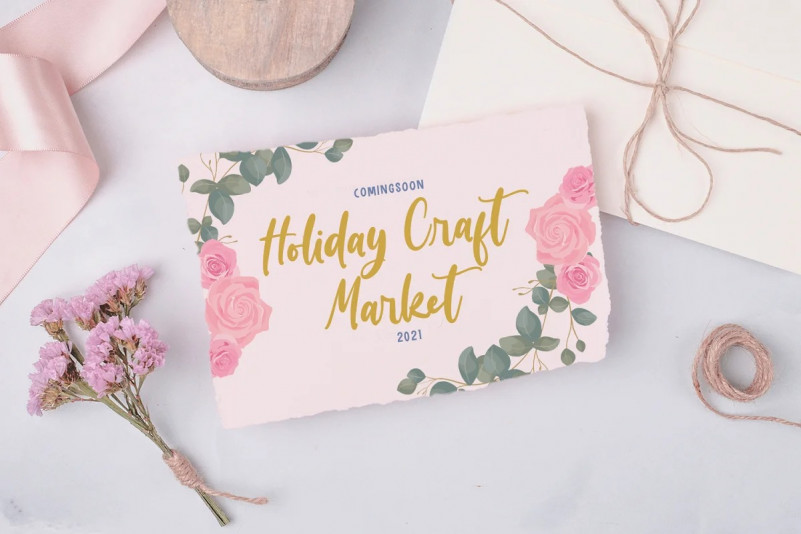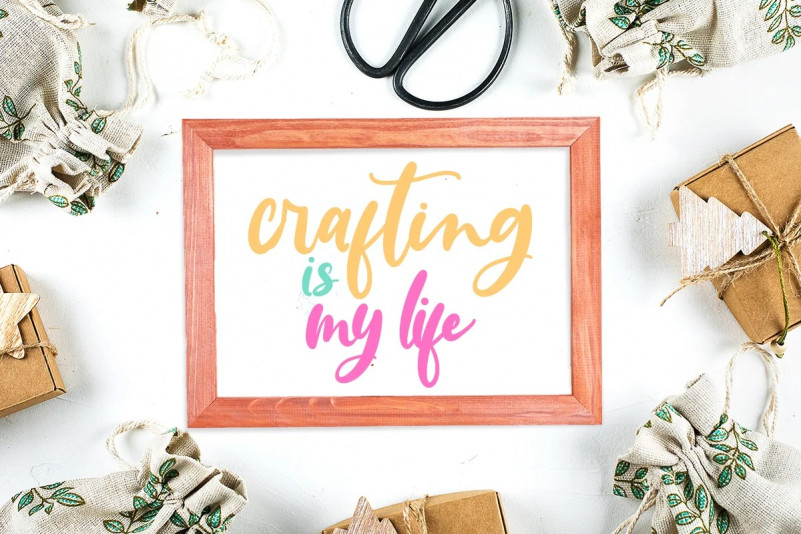
Digress Script Font
Introducing Digress – Handwritten Font
This font is great for branding materials, quotes, business cards, headings, blogs, logos, Cricut artwork, posters and more!